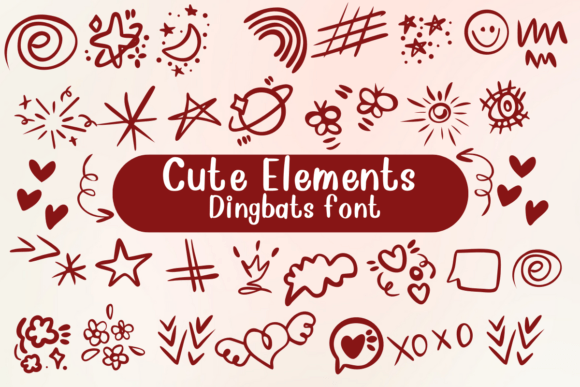
Cute Elements Font: Elevate Your Creative Projects with a Fun and Playful Touch
In the world of graphic design, fonts play a crucial role in conveying the tone and personality of a project. When it comes to creating visually appealing and engaging content, the right font can make all the difference. If you’re looking for a font that can add a fun and playful touch to your creative projects, look no further than Cute Elements Font. In this article, we’ll explore the features and benefits of Cute Elements Font, and how it can enhance your wedding invitations, DIY projects, crafts, decorations, logos, and many other creative ideas.
What is Cute Elements Font?
Cute Elements Font is a dingbat font with a fun theme that is designed to add a playful and whimsical touch to your creative projects. This font is perfect for designers, crafters, and DIY enthusiasts who want to create unique and eye-catching content. With its cute and endearing elements, Cute Elements Font is sure to delight your audience and set your project apart from the rest.
Creative Project Ideas with Cute Elements Font
Cute Elements Font is a versatile font that can be used in a wide range of creative projects. Here are some ideas to get you started:
- Wedding Invitations: Add a touch of whimsy and romance to your wedding invitations with Cute Elements Font. You can use it to create custom illustrations, decorate your envelope liners, or add a playful twist to your RSVP cards.
- DIY Projects: Cute Elements Font is perfect for DIY enthusiasts who love crafting and making things. You can use it to create custom labels, decorate your scrapbook pages, or add a personal touch to your handmade gifts.
- Crafts: Whether you’re making cards, gift tags, or other paper crafts, Cute Elements Font is a great choice. You can use it to create custom illustrations, add a playful touch to your sentiments, or decorate your project with cute icons.
- Decorations: Cute Elements Font can also be used to create custom decorations for your home or event. You can use it to create custom banners, decorate your party hats, or add a playful touch to your table runners.
- Logos: If you’re starting a new business or rebranding an existing one, Cute Elements Font can be a great choice for your logo. You can use it to create a custom illustration, add a playful touch to your business name, or create a unique icon that represents your brand.
Benefits of Using Cute Elements Font
Cute Elements Font offers a range of benefits that make it a great choice for your creative projects. Here are some of the advantages of using this font:
- Unique and Eye-Catching: Cute Elements Font is a unique and eye-catching font that can help your project stand out from the rest. Its playful and whimsical design makes it perfect for projects that require a fun and creative touch.
- Versatile: Cute Elements Font is a versatile font that can be used in a wide range of creative projects. Whether you’re making wedding invitations, DIY projects, or logos, this font can help you achieve your design goals.
- Scalable: Cute Elements Font is a scalable font that can be used in a variety of sizes and resolutions. Whether you’re creating a small icon or a large banner, this font will look great and remain legible.
Tips and Tricks for Using Cute Elements Font
Here are some tips and tricks for using Cute Elements Font in your creative projects:
- Mix and Match: Don’t be afraid to mix and match Cute Elements Font with other fonts and design elements. You can use it to create a custom illustration, add a playful touch to your sentiments, or decorate your project with cute icons.
- Experiment with Colors: Cute Elements Font looks great in a variety of colors and can be used to add a pop of color to your project. Experiment with different colors and combinations to find the one that works best for your design.
- Use it in Combination with Images: Cute Elements Font can be used in combination with images to create a custom illustration or add a playful touch to your project. You can use it to create a photo overlay, add a caption to your image, or decorate your picture frame.
- Make it 3D: Cute Elements Font can be used to create 3D effects and add depth to your project. You can use it to create a custom button, add a raised effect to your text, or create a 3D icon.
Cute Elements Font is a fun and playful font that can add a unique touch to your creative projects. With its cute and endearing elements, this font is perfect for designers, crafters, and DIY enthusiasts who want to create visually appealing and engaging content. Whether you’re making wedding invitations, DIY projects, crafts, decorations, logos, or other creative ideas, Cute Elements Font is a great choice. So why not give it a try and see how it can elevate your creative projects?